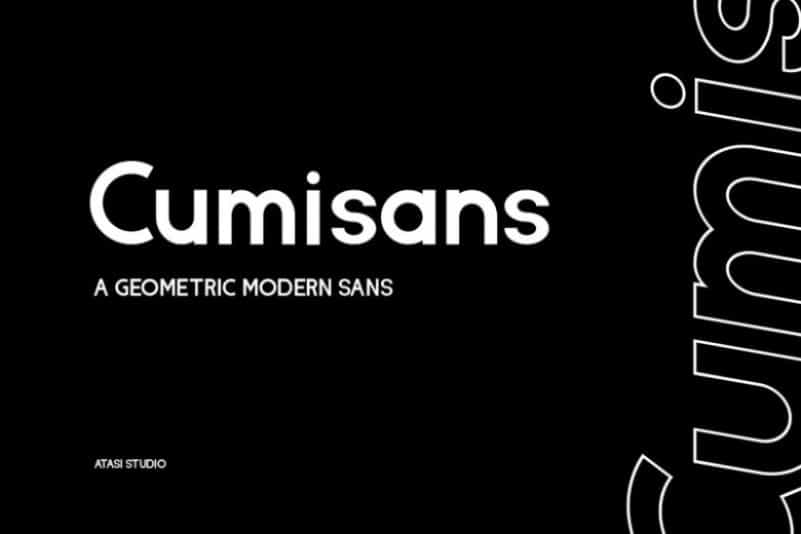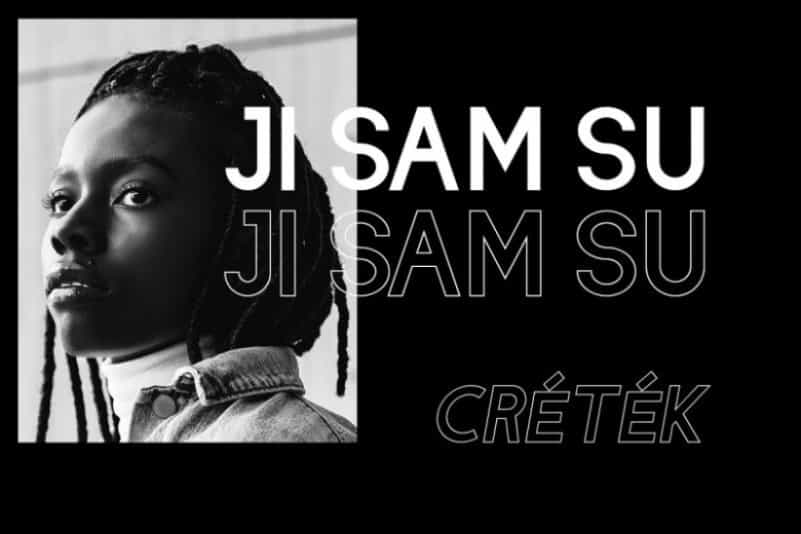
Introducing a geometric modern sans font: Cumisans Font. A clean well-proportioned geometric sans serif typeface, highly readable and versatile. A simple and sophisticated font that is definitely a sans serif. It is a font family that is highly suitable for both modern and timeless branding strategies. It is created and posted by Atasi Studio. It is a type of font that is geometric, modern sans with a strong look and powerful.